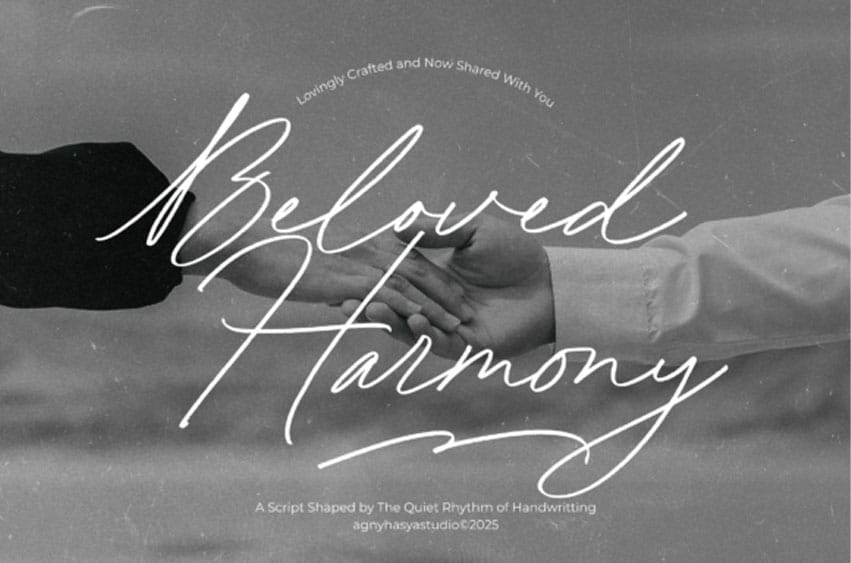
Beloved Harmony Font is a charming handwritten font designed to convey a soft, heartfelt expression through natural, flowing strokes.
Its warm, organic letterforms bring intimacy and authenticity to every design, making it ideal for projects that need a personal, expressive touch.
Lovingly crafted and now shared with you, this font is a script shaped by the quiet rhythm of handwriting.
It blends elegance with approachability, making it perfectly suited for wedding designs, signatures, branding, quotes, product packaging, social media content, and eye-catching display text.
To elevate your typography, Beloved Harmony features special ligatures, unique stylistic alternates, and elegant swashes, providing you with creative flexibility and beautifully varied lettering throughout your designs.